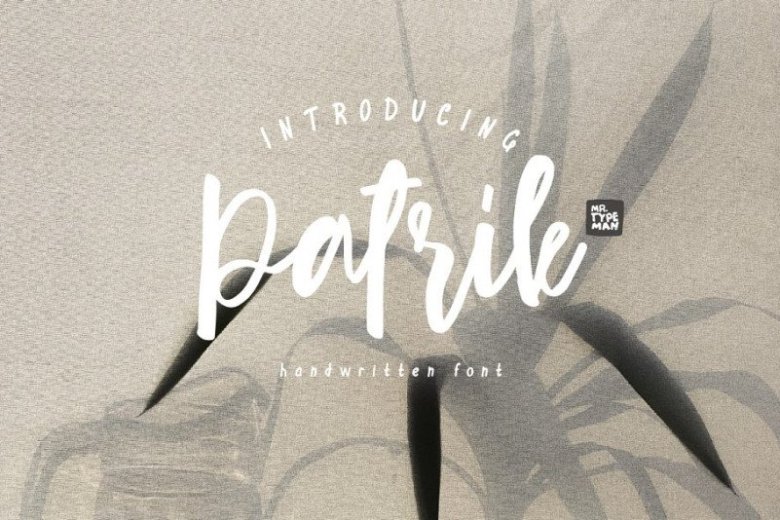
Patrik Script Font
Patrik Script Font is was created to look as close to a natural handwritten script as possible. This font that will give instant flair to your designs. It is design and shared by Mr.Typeman. It’s pleasant and elegant style. If you want to add a certain charm, appeal and allure in your projects, It’s just what you need.
Patrik Script was created to help you designing logotype or lettering style logo for your Brand or your clients, and you also can use it for designing all of the graphic stuff such as badge, sign, packaging, headline, title, T-shirt/apparel, Poster, etc.